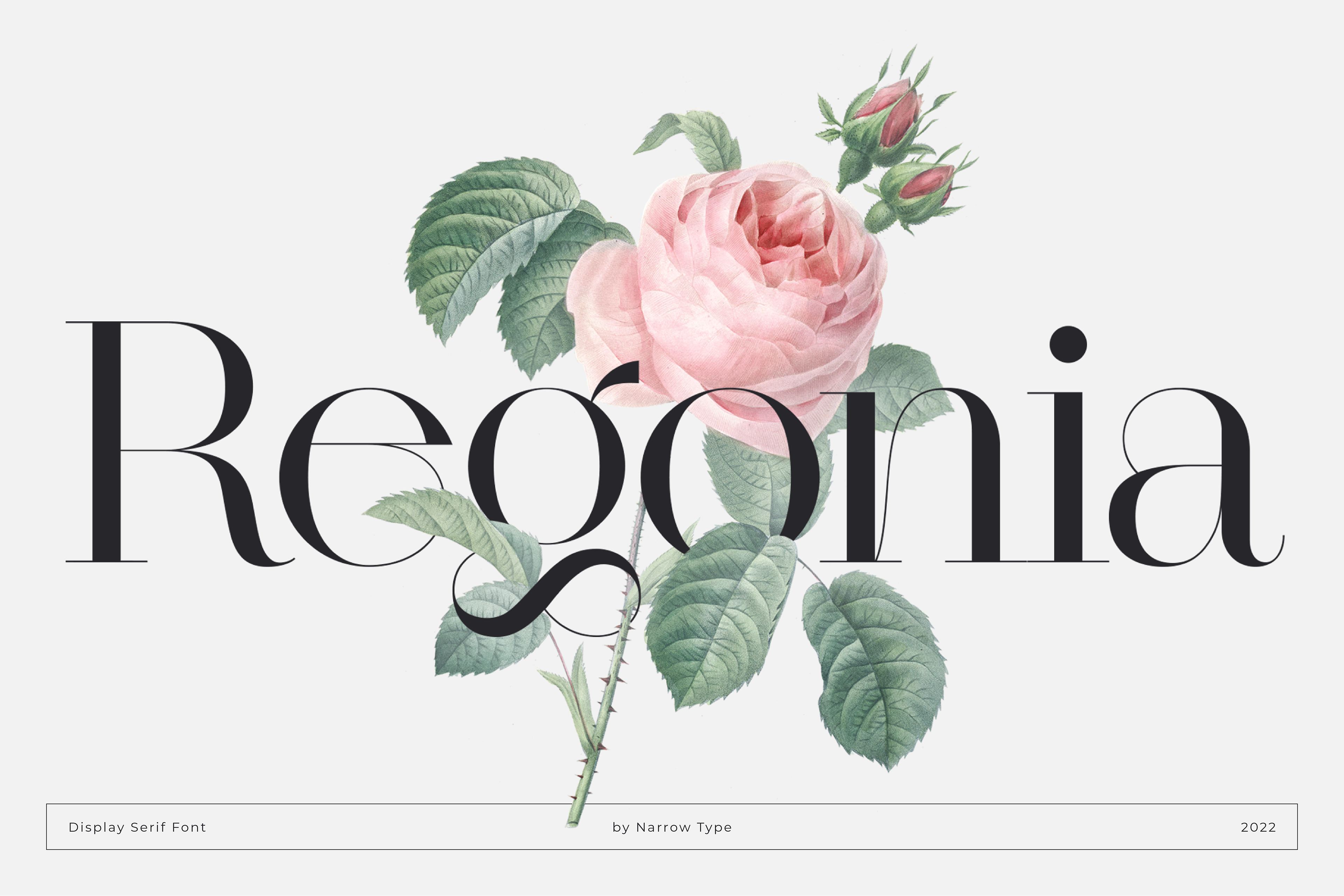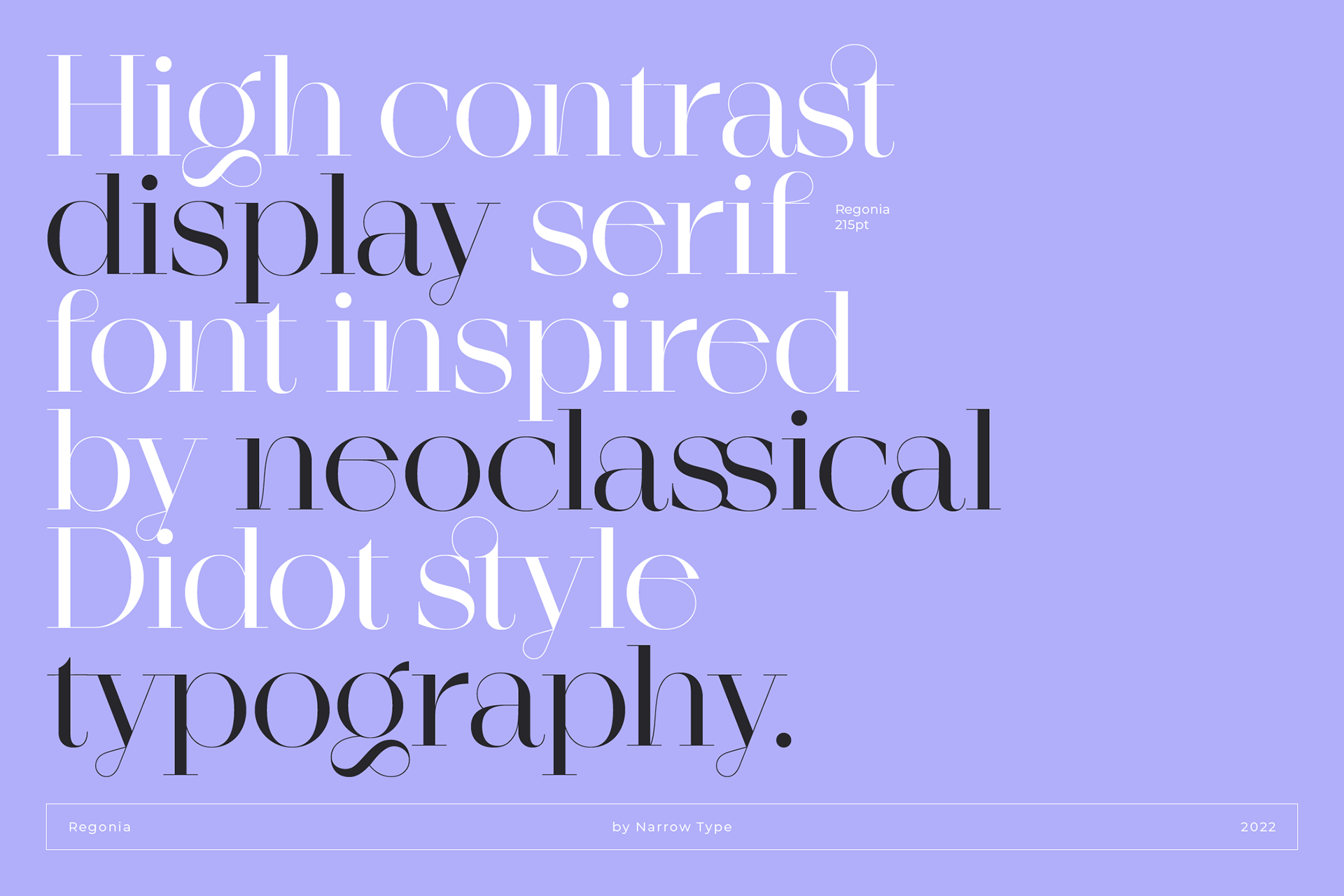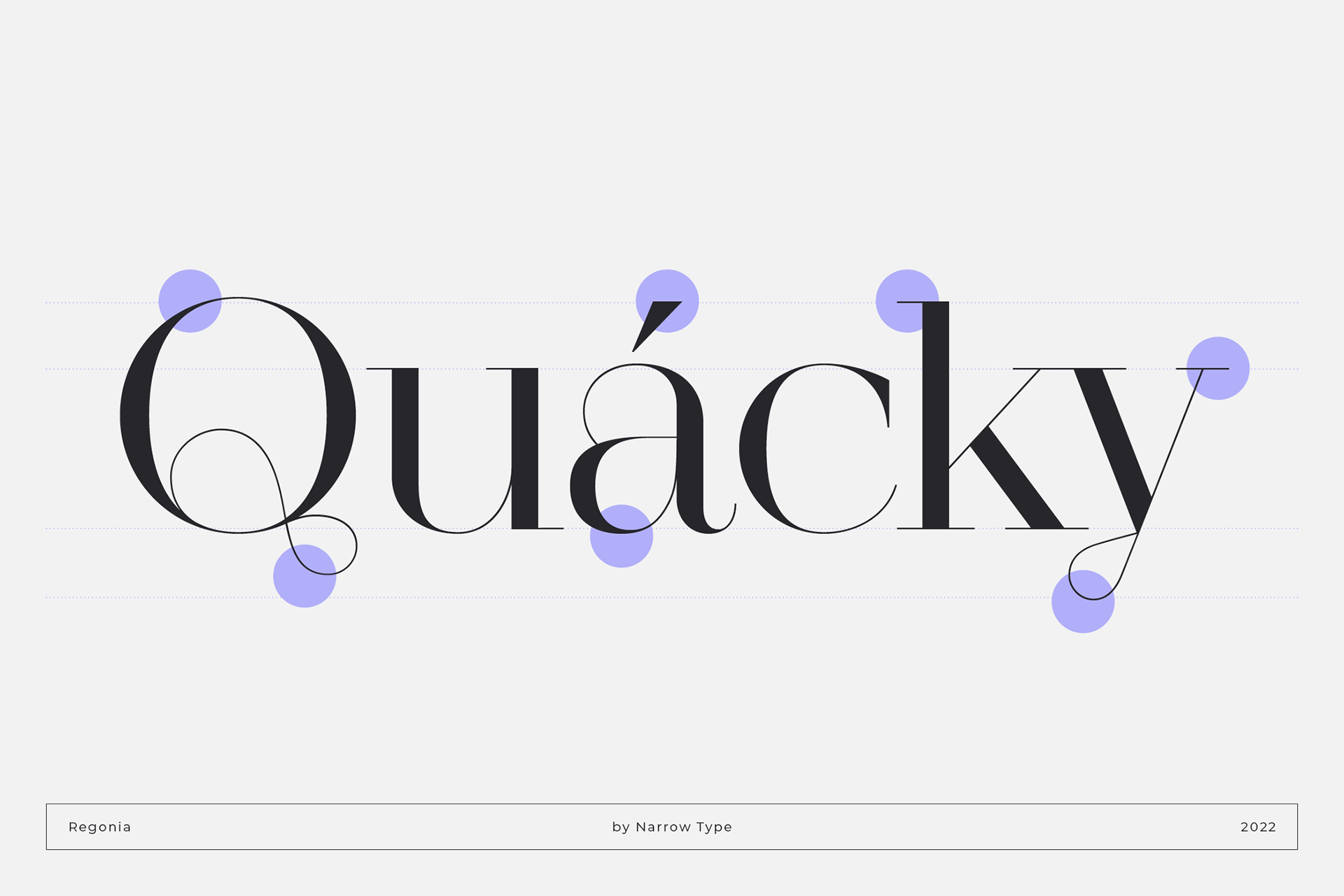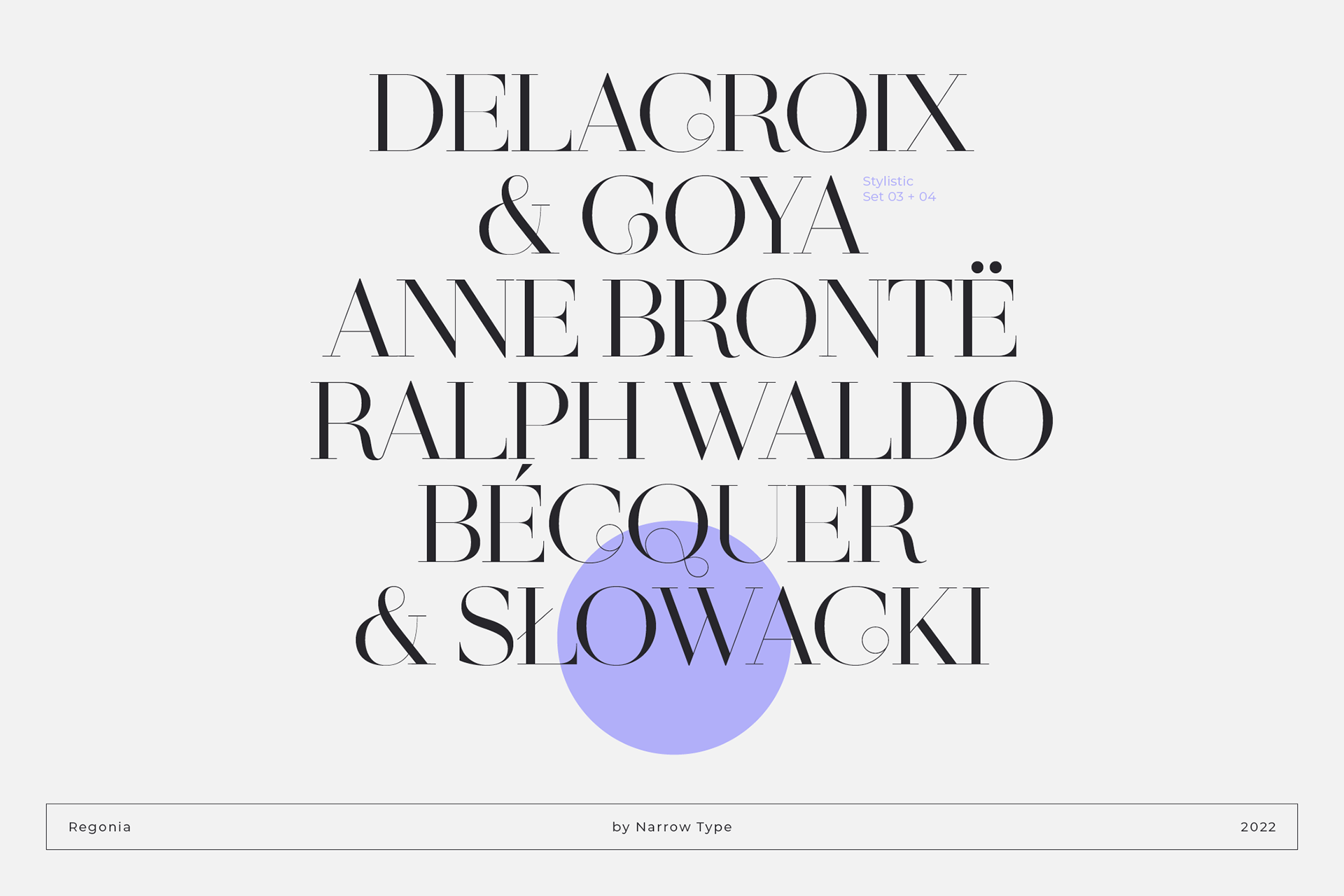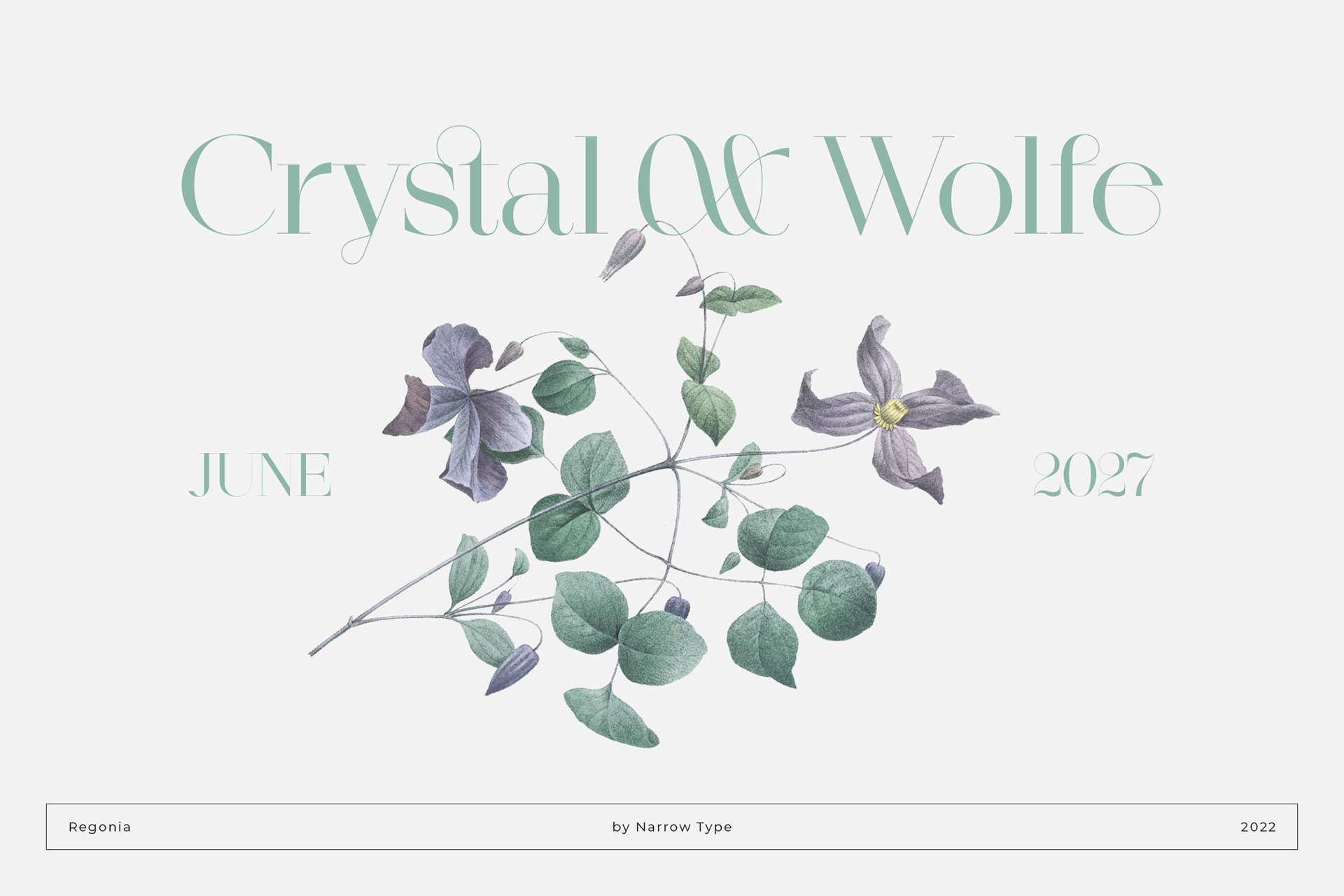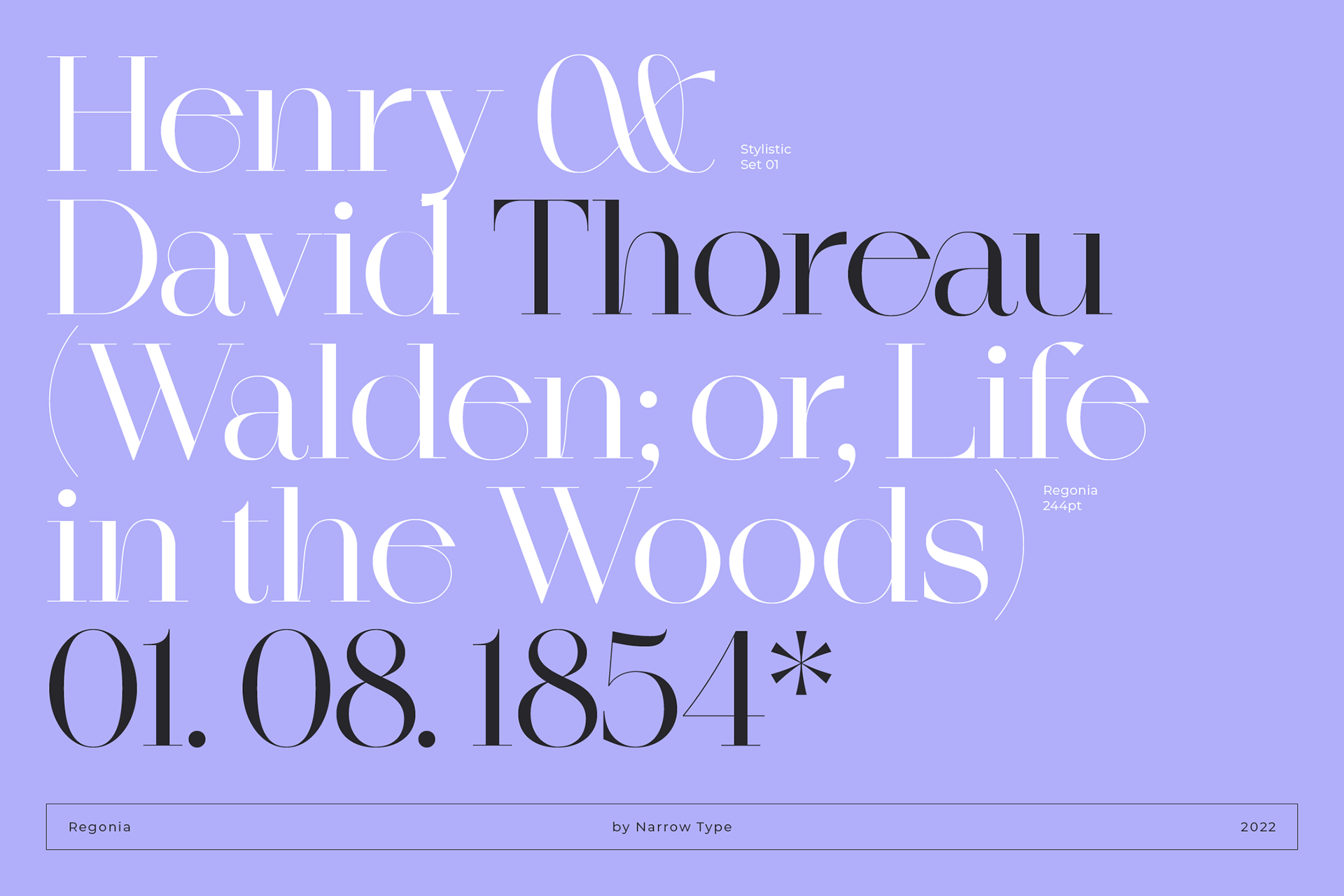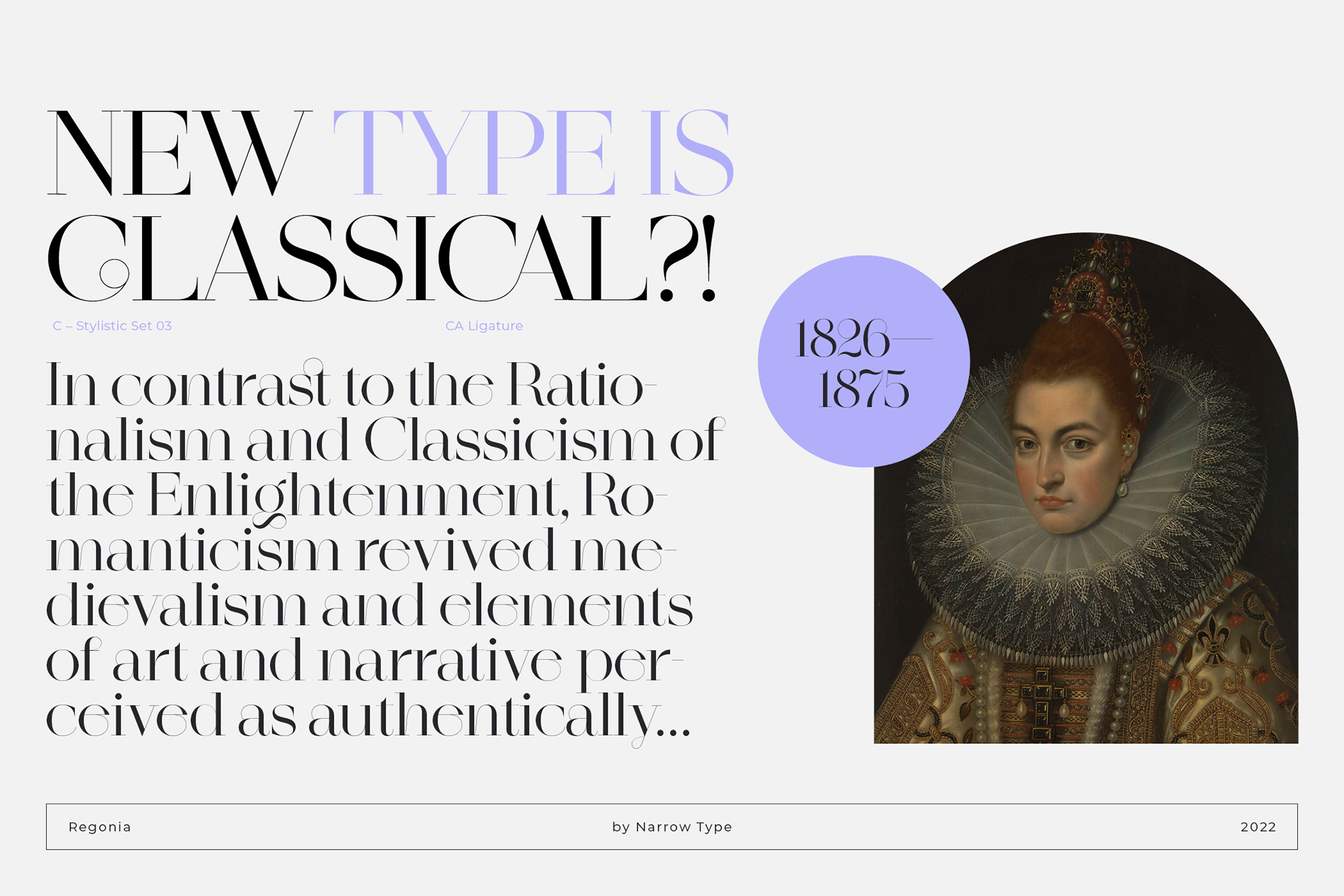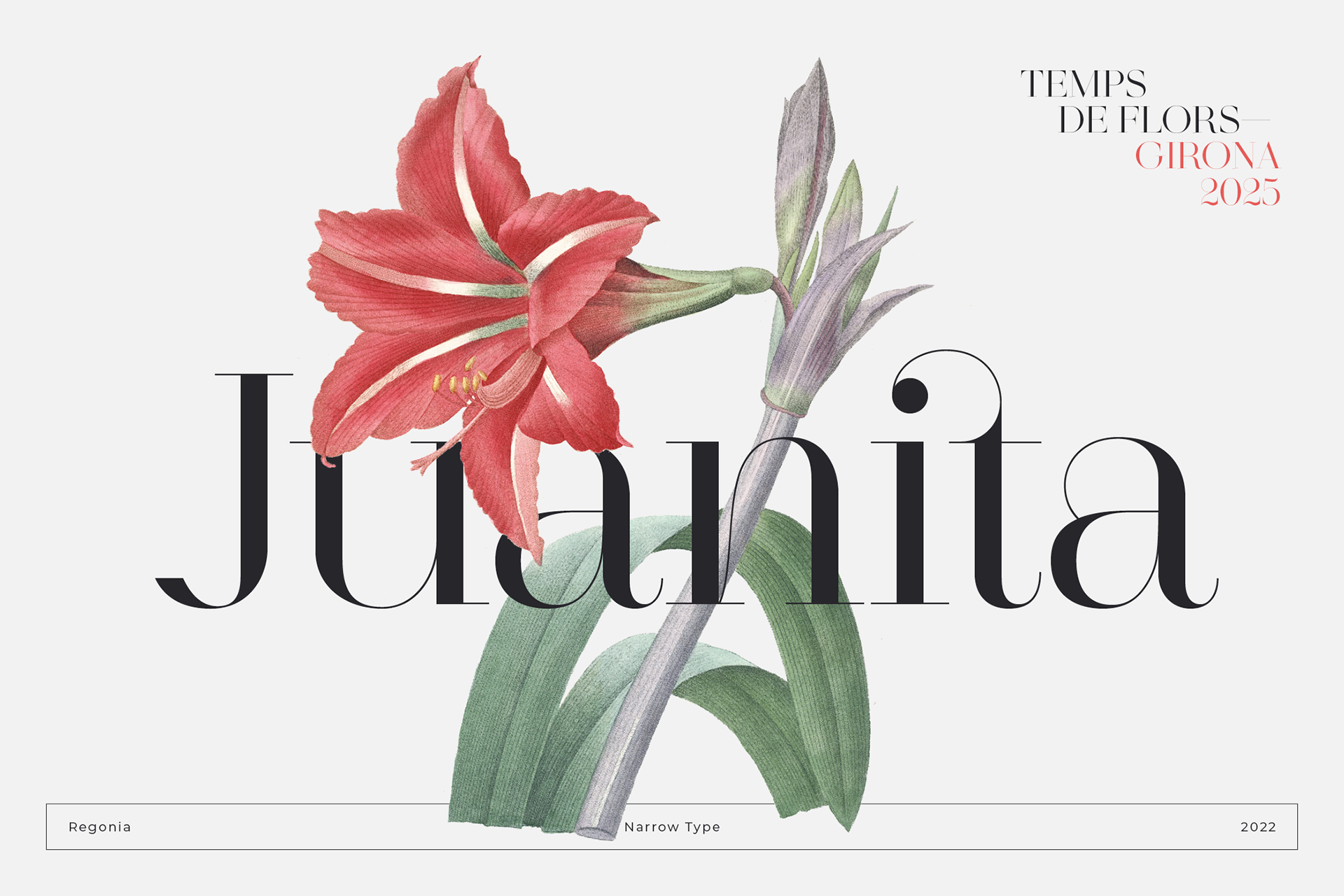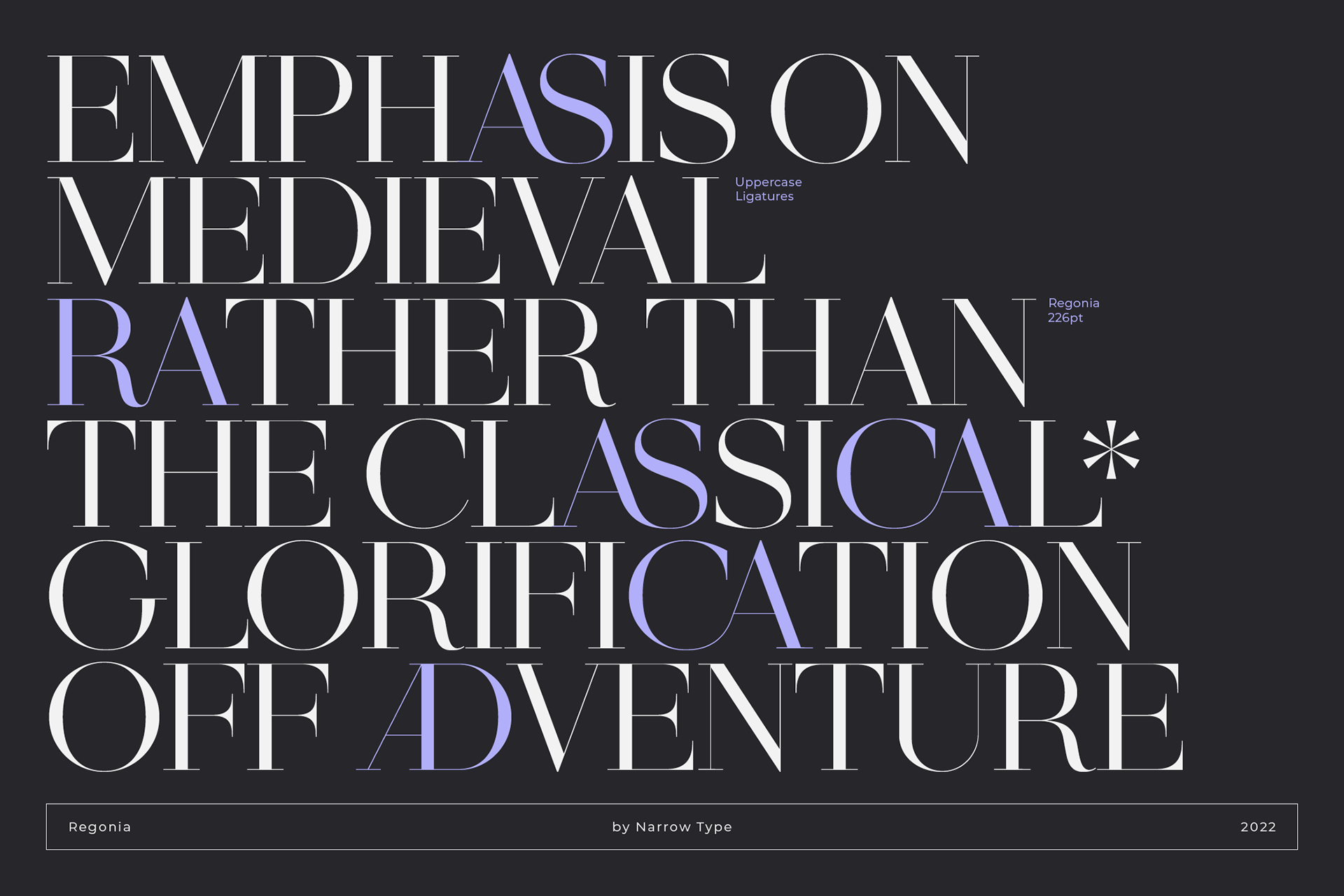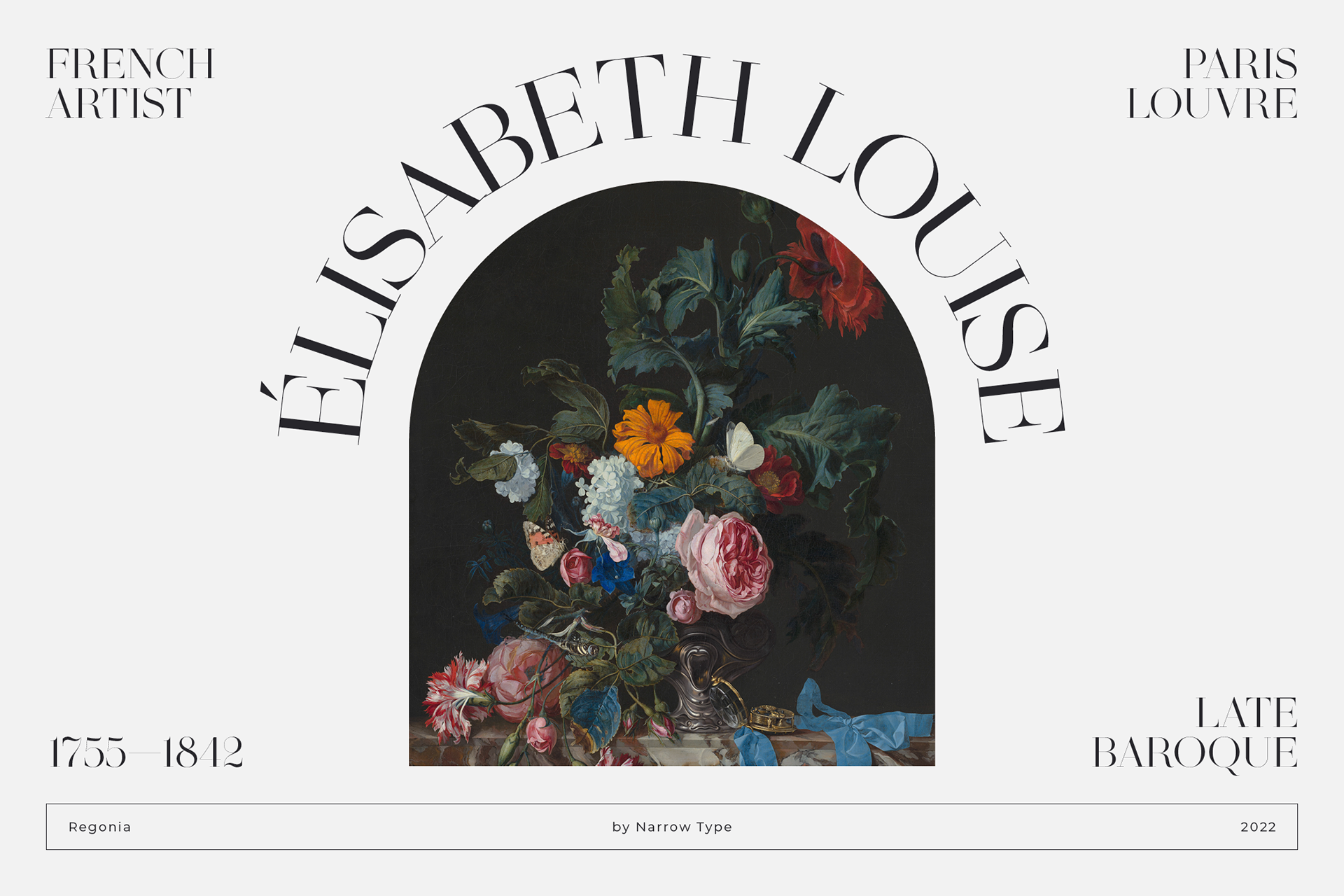
Regonia is a high-contrast display serif typeface inspired by neoclassical Didot style typography. Thin hairlines and many unique details make Regonia an elegant and contemporary typeface. Regonia has a large x-height and works perfectly in headlines or bigger sizes. It is also equipped with many ligatures and alternative glyphs, which will make your projects more unique.